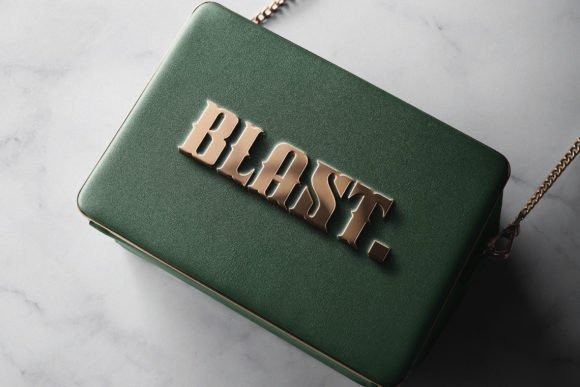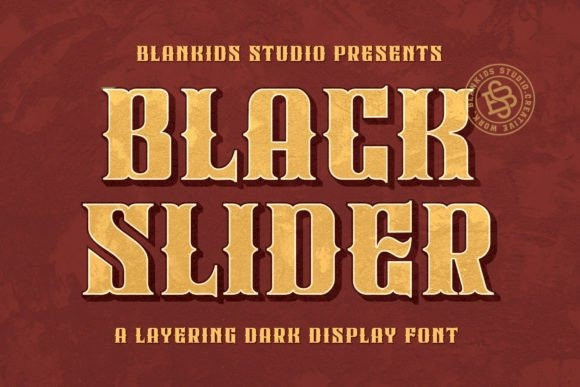
Black Slider Font
Black Slider Vintage Font is a splendid, Gothic-style display font. Stylish and with a subtle Victorian vibe, this font is perfect for all your dark-themed projects!